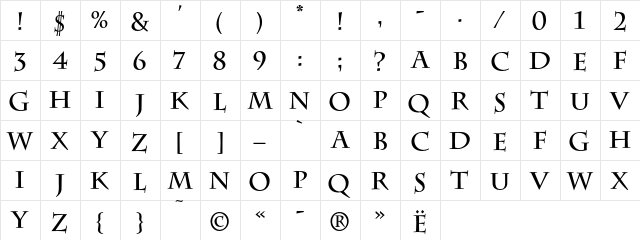
DS CenturyCapitalsC Regular
Design Context for DS CenturyCapitalsC Typeface
DS CenturyCapitalsC is a composed and adaptable typeface that performs quietly and consistently across a wide range of design contexts.